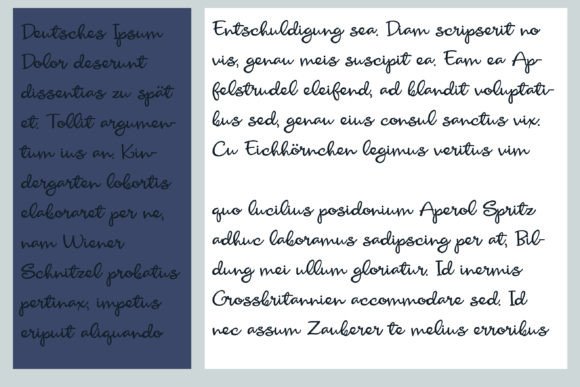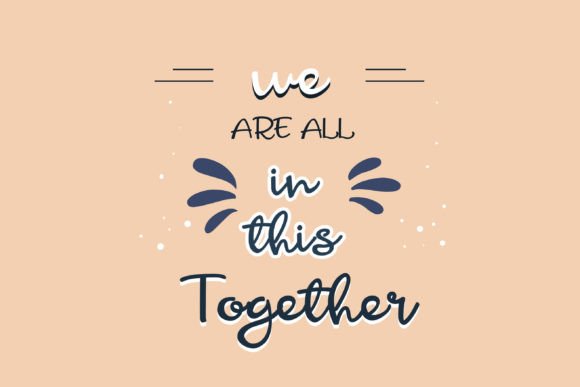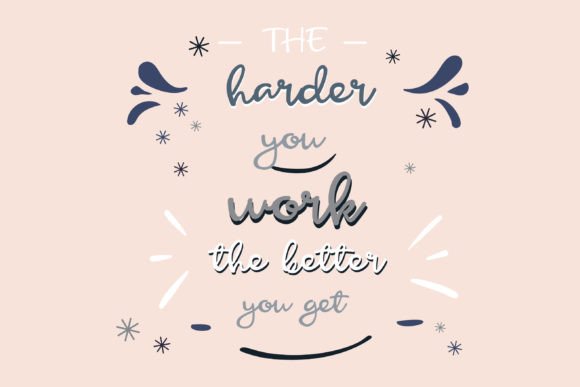
Promise Ring Font
This hand-written font is a pretty cursive with a bit of a casual feel. No matter the topic, this font will be an incredible asset to your fonts’ library, as it has the potential to elevate any creation.Bold, Light, Stencil, and Highlighted versions are included.